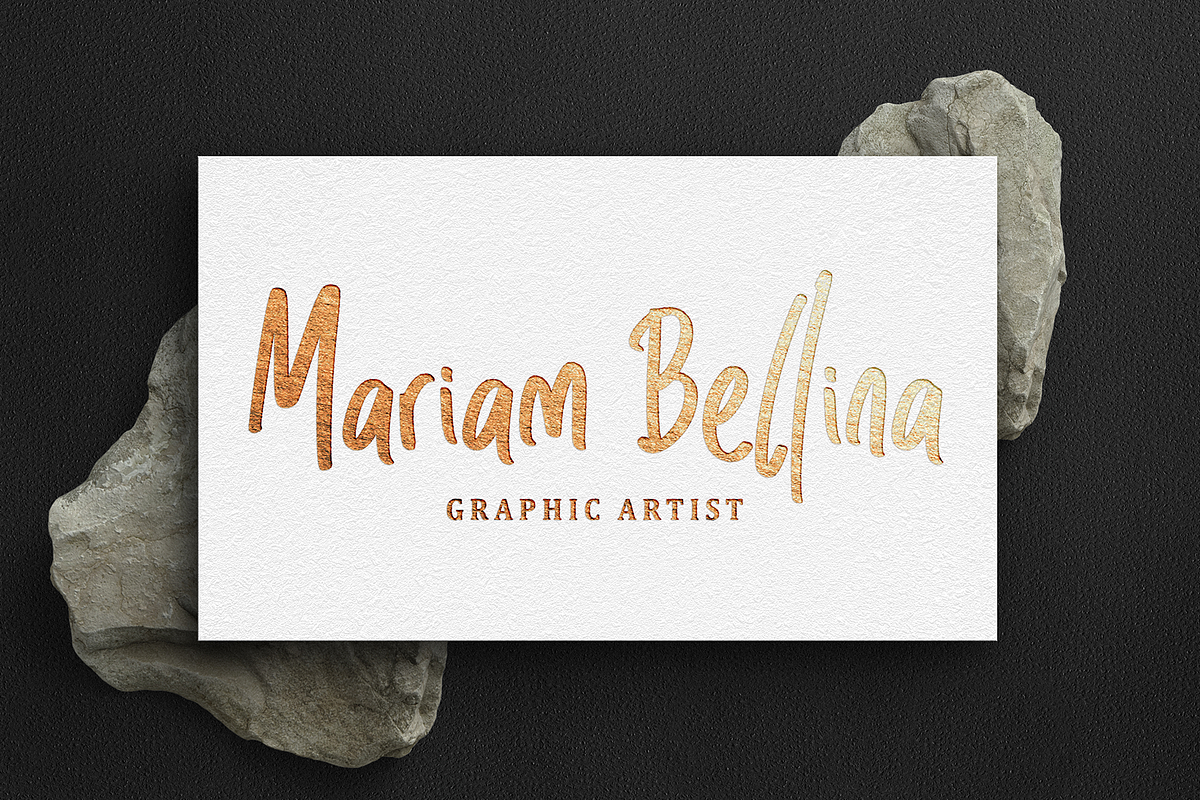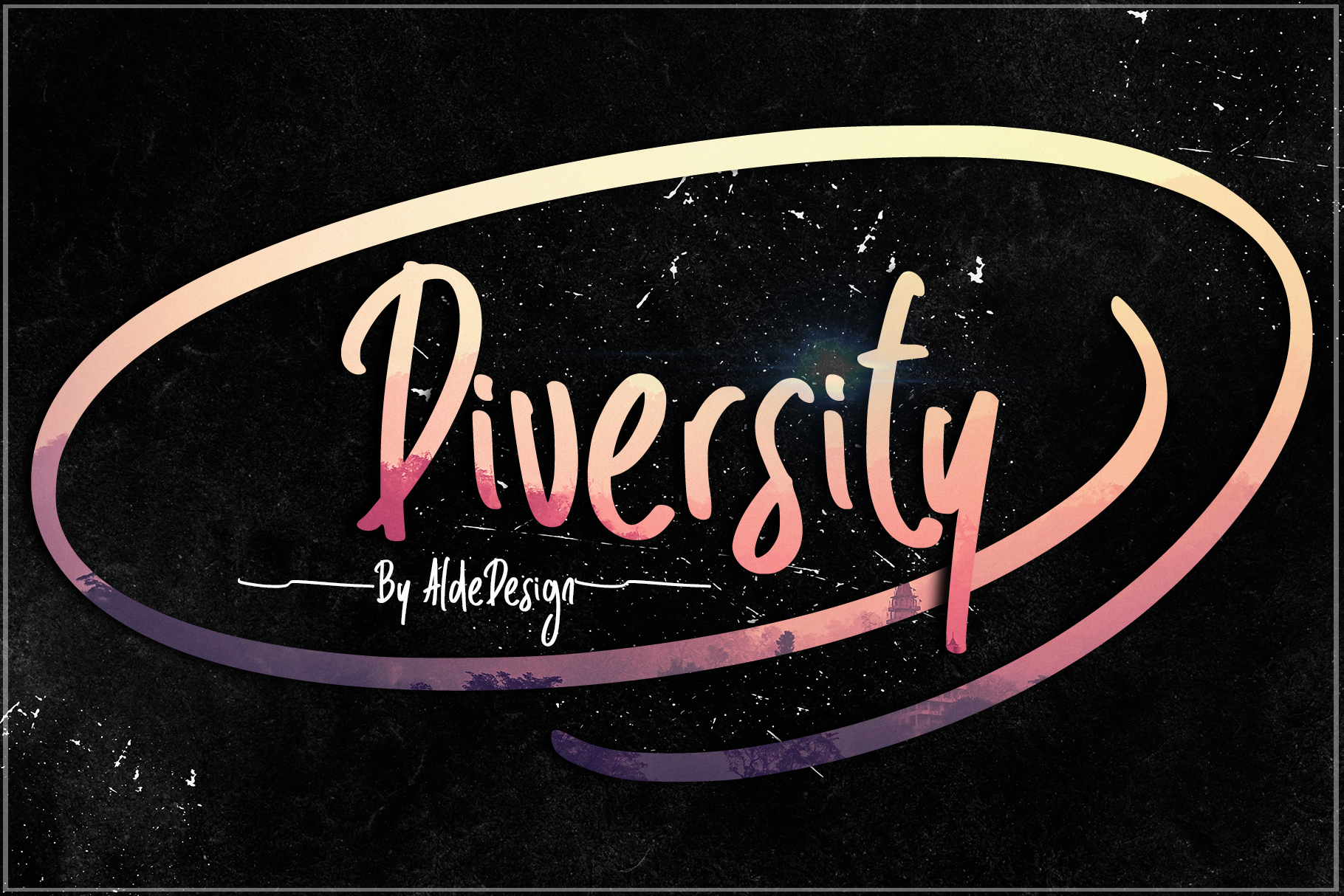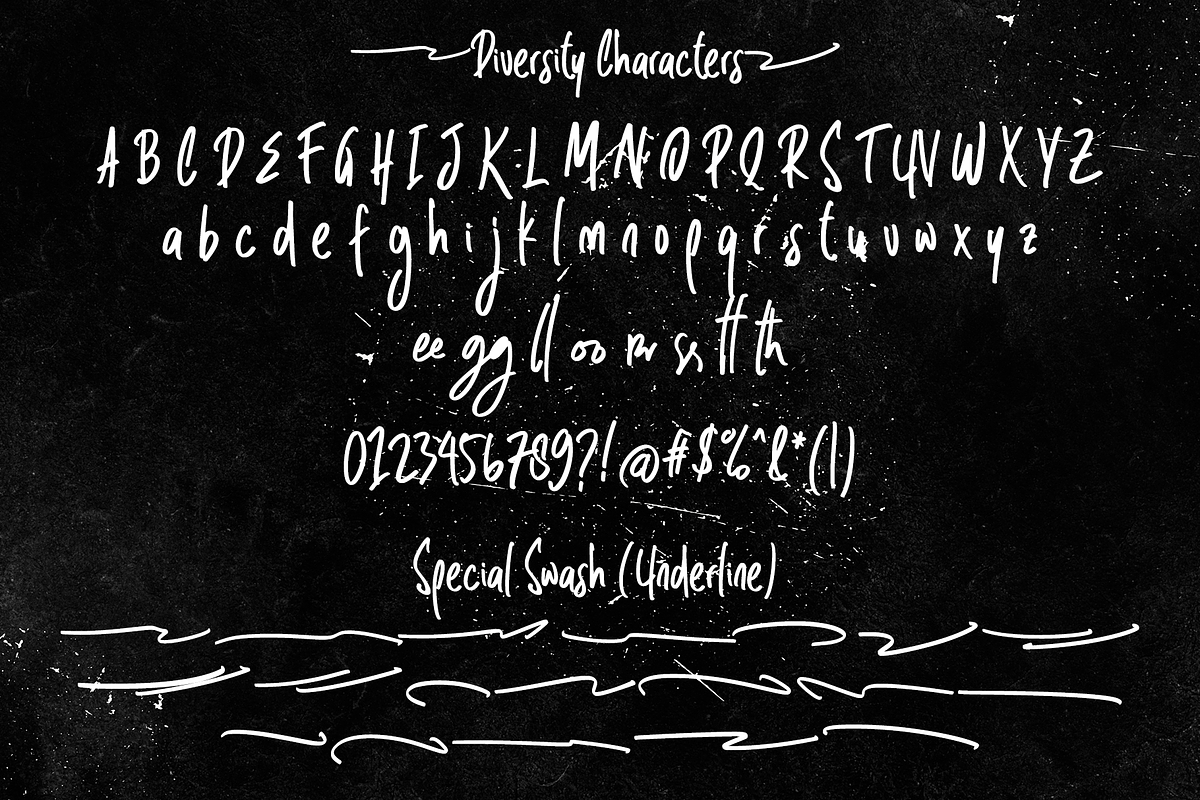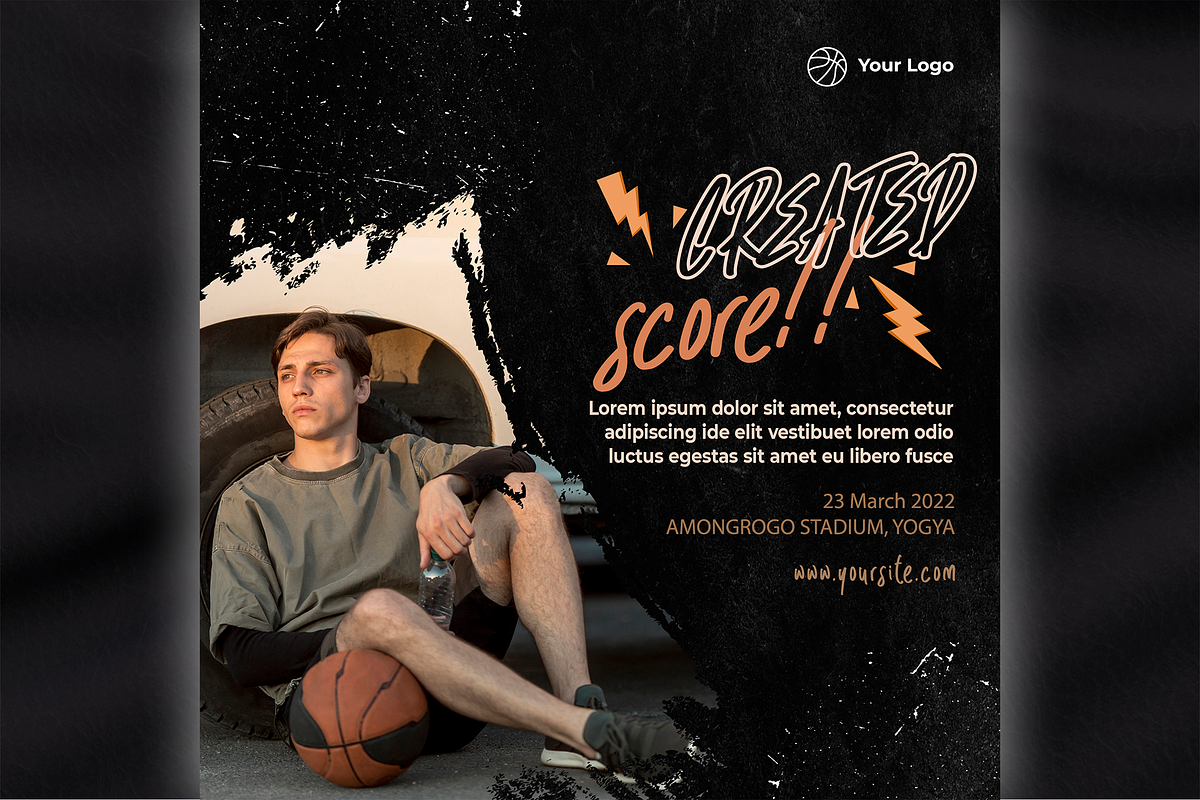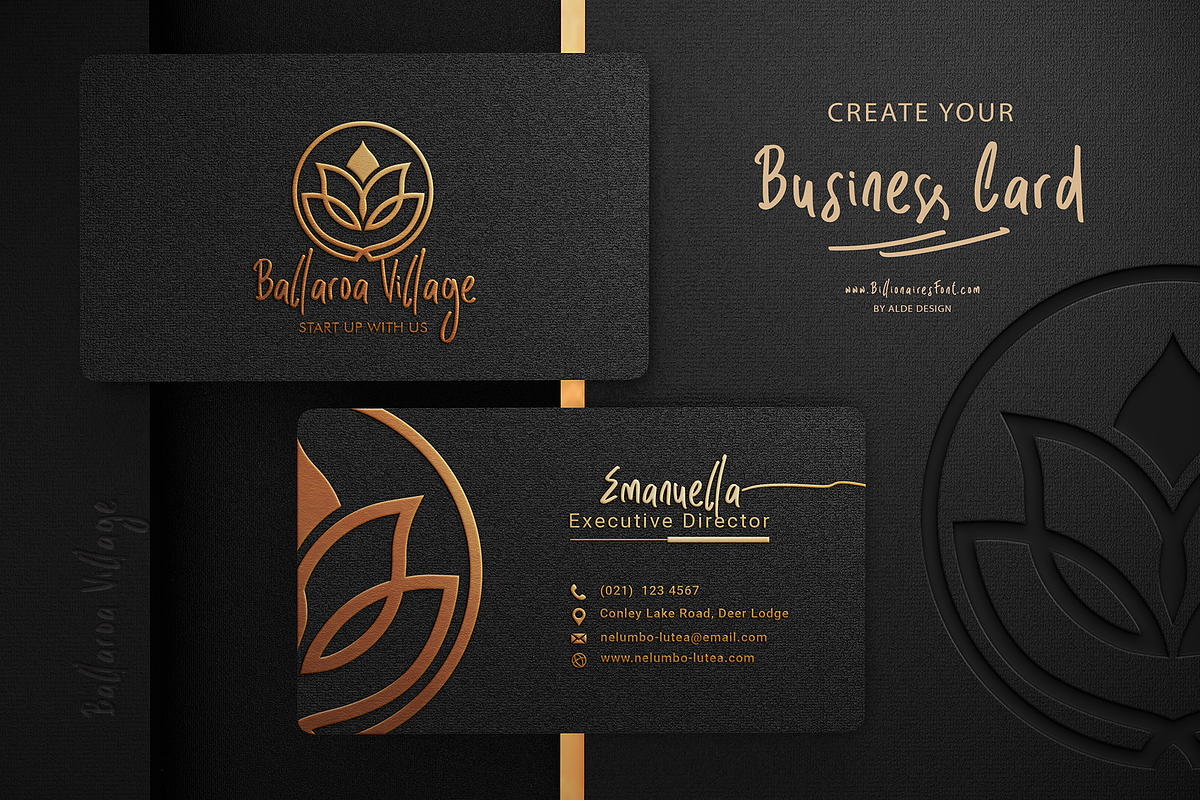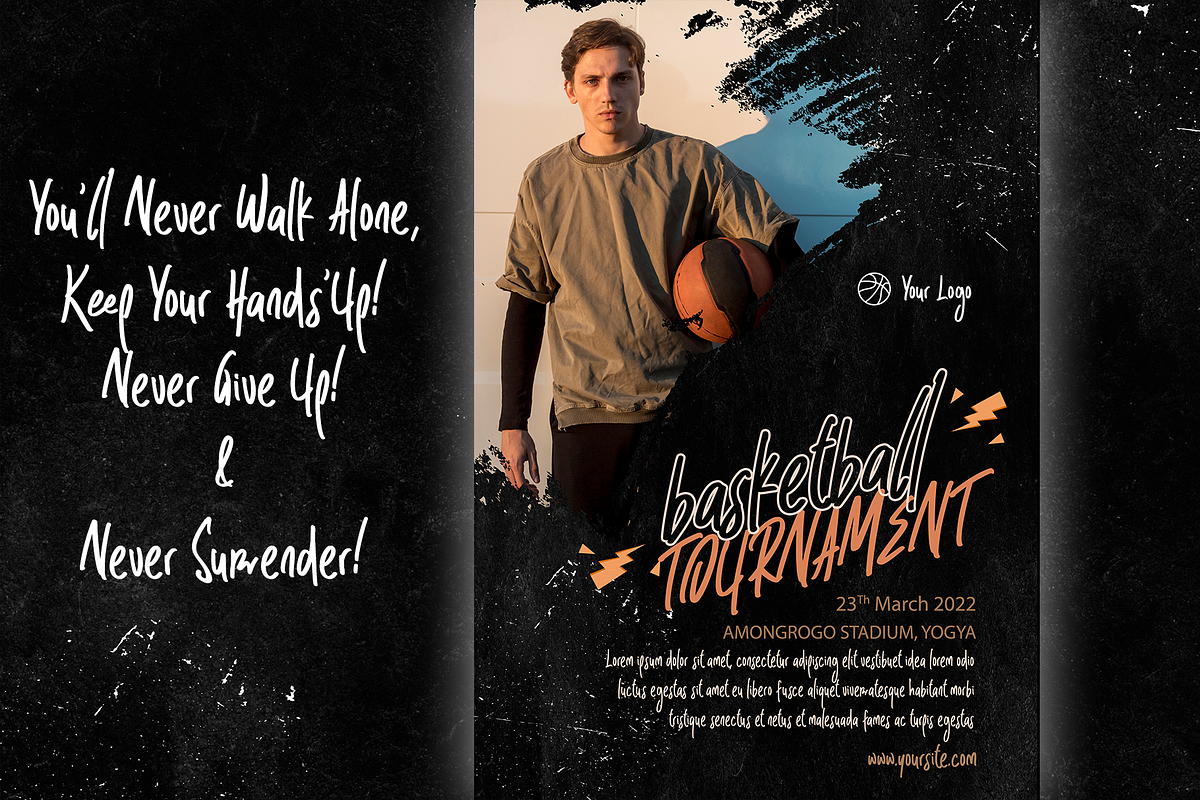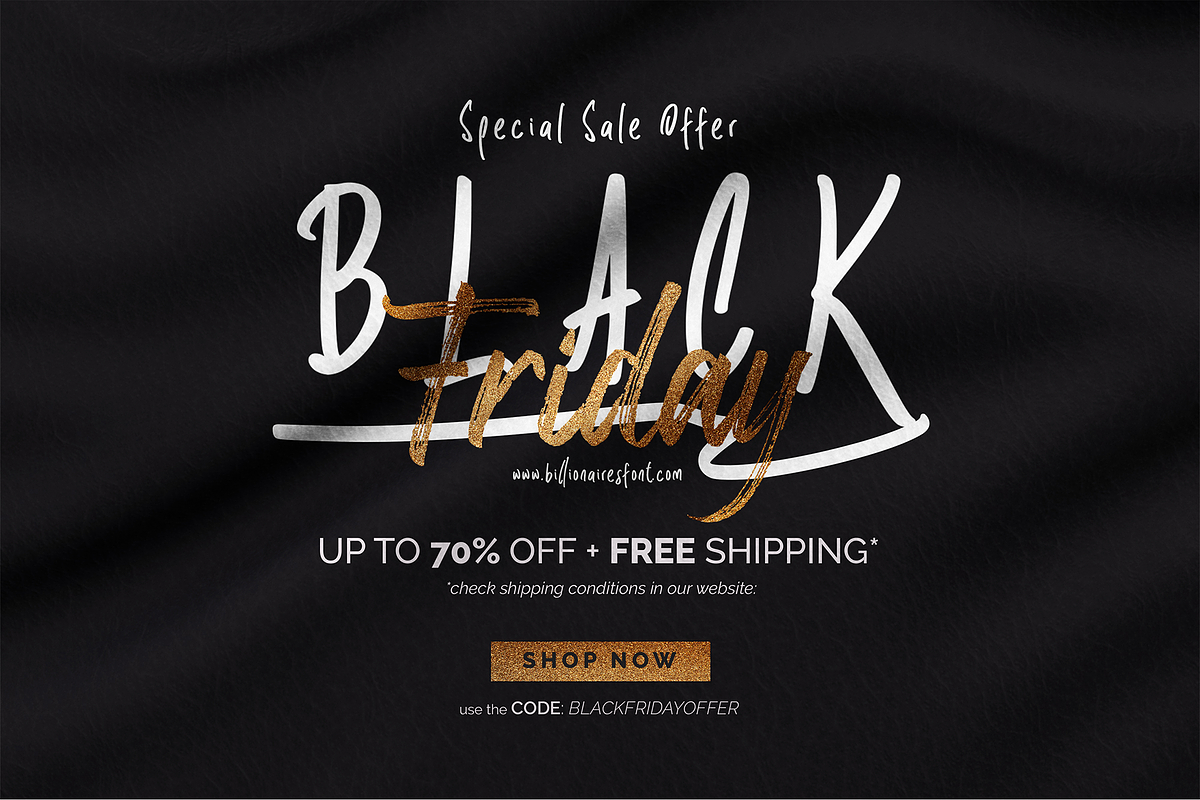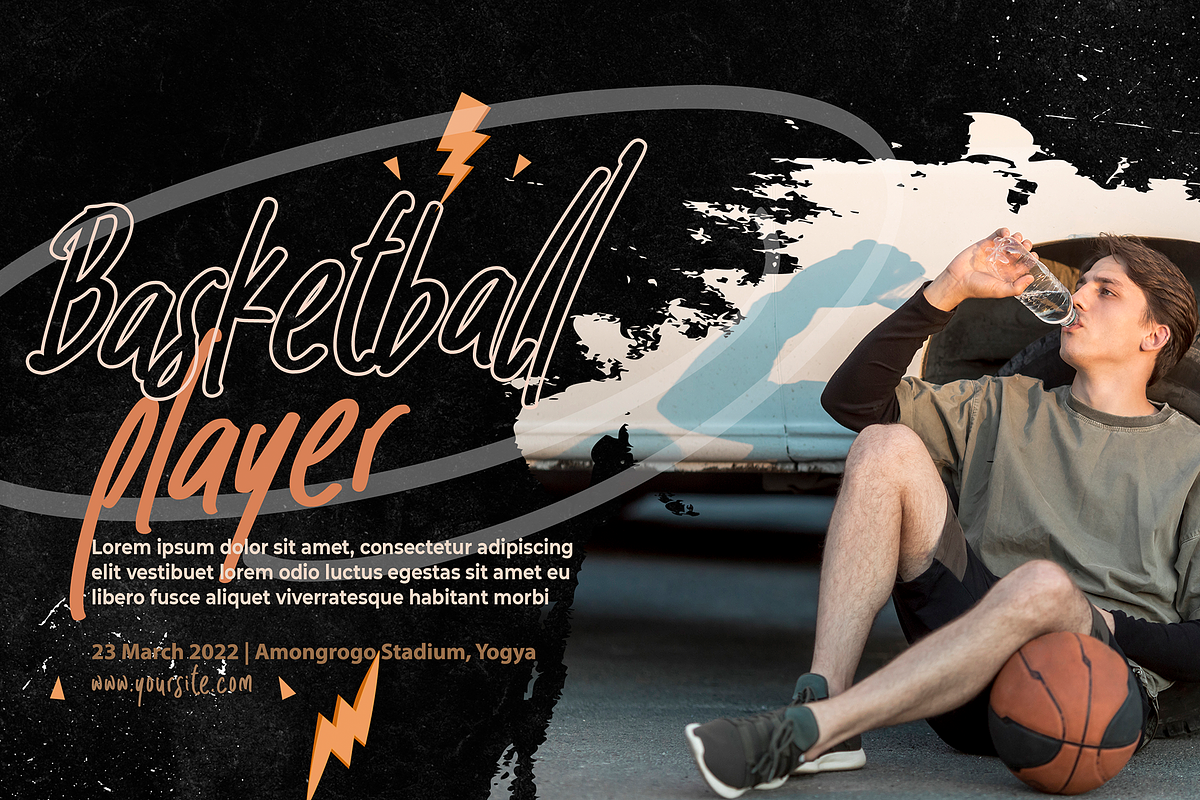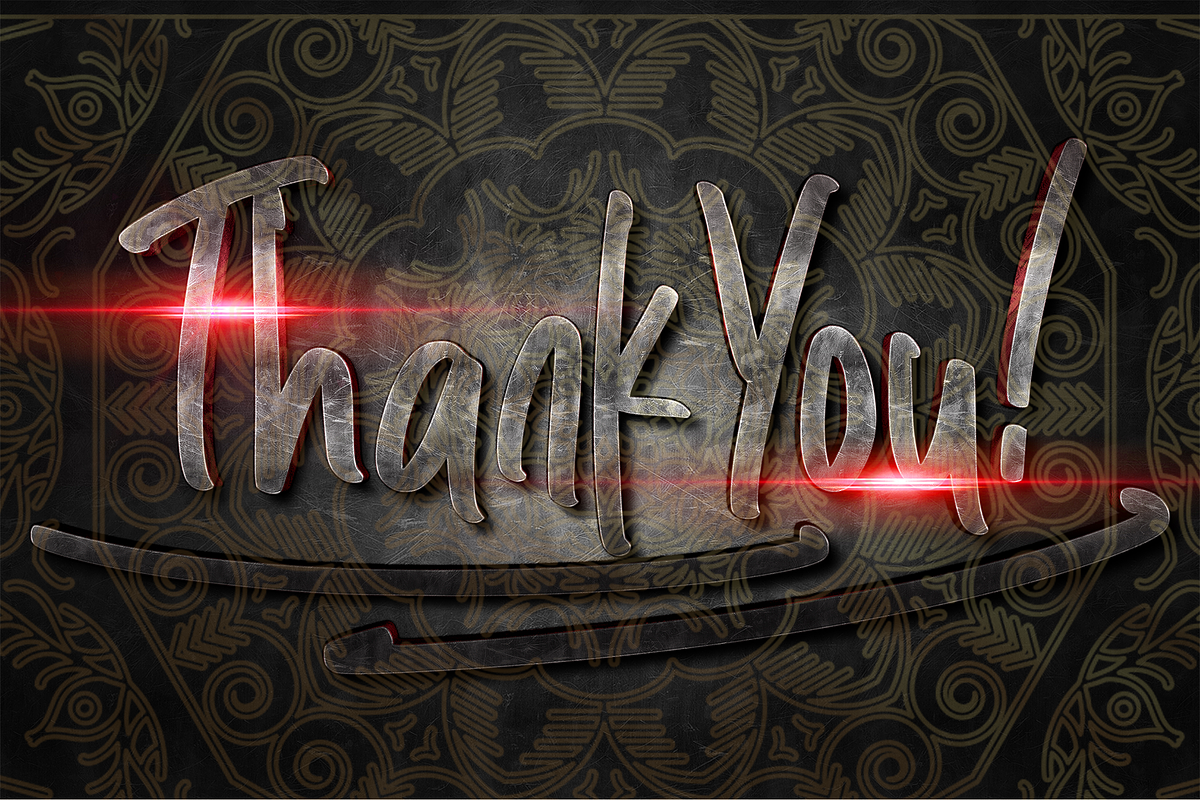
Diversity - Playful Handmade Font
Diversity is a unique handwritten font with a handmade touch. This font is perfect for posters, pamphlets, logos, quotes, posters, playful lettering, clothing, or any other design projects.